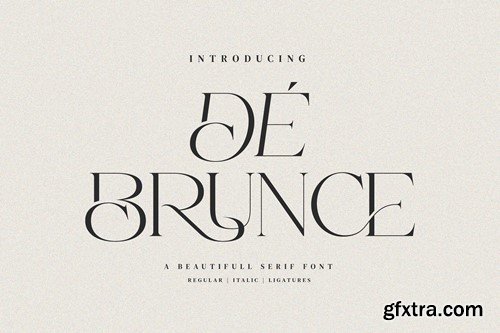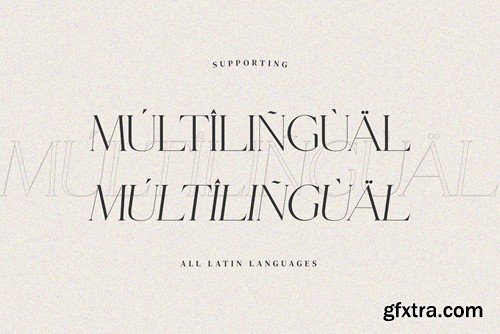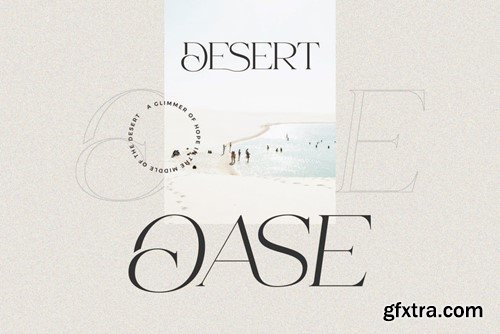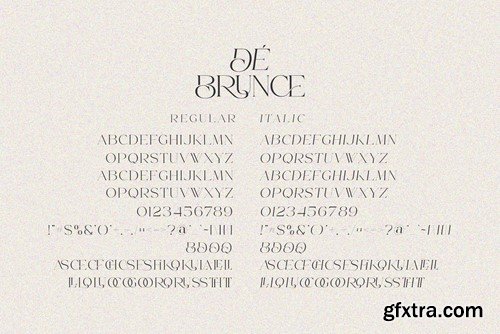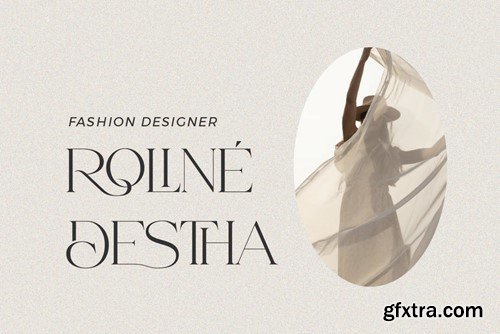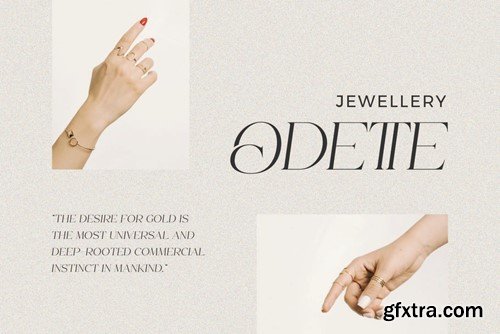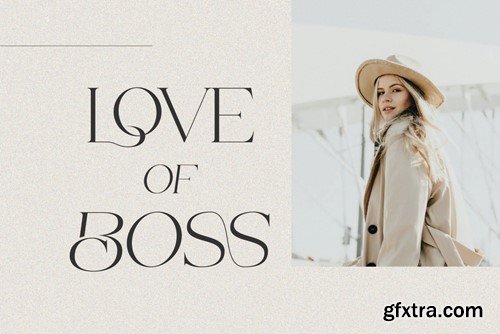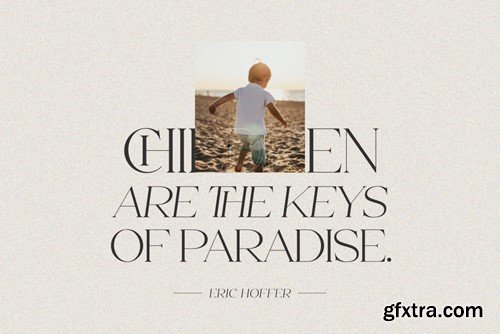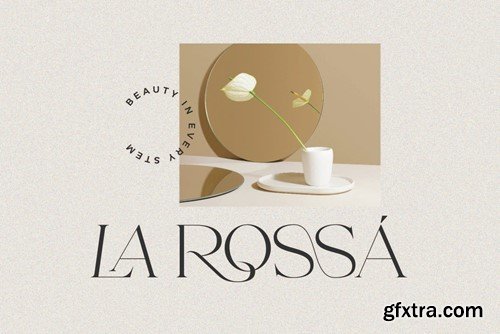
Brunce - 美丽的 ligature 字体 9VEPKGA
De Brunce - Beautifull Ligature Font 9VEPKGA
De Brunce - Beautifull Ligature Font
De Brunce Stylish Ligature Typeface, inspired by the famous minimalist logo perfect for the purposes of designing templates, brochures, videos, advertising branding, logos and more.
• Standard glyphs
• Ligatures
• International Accent